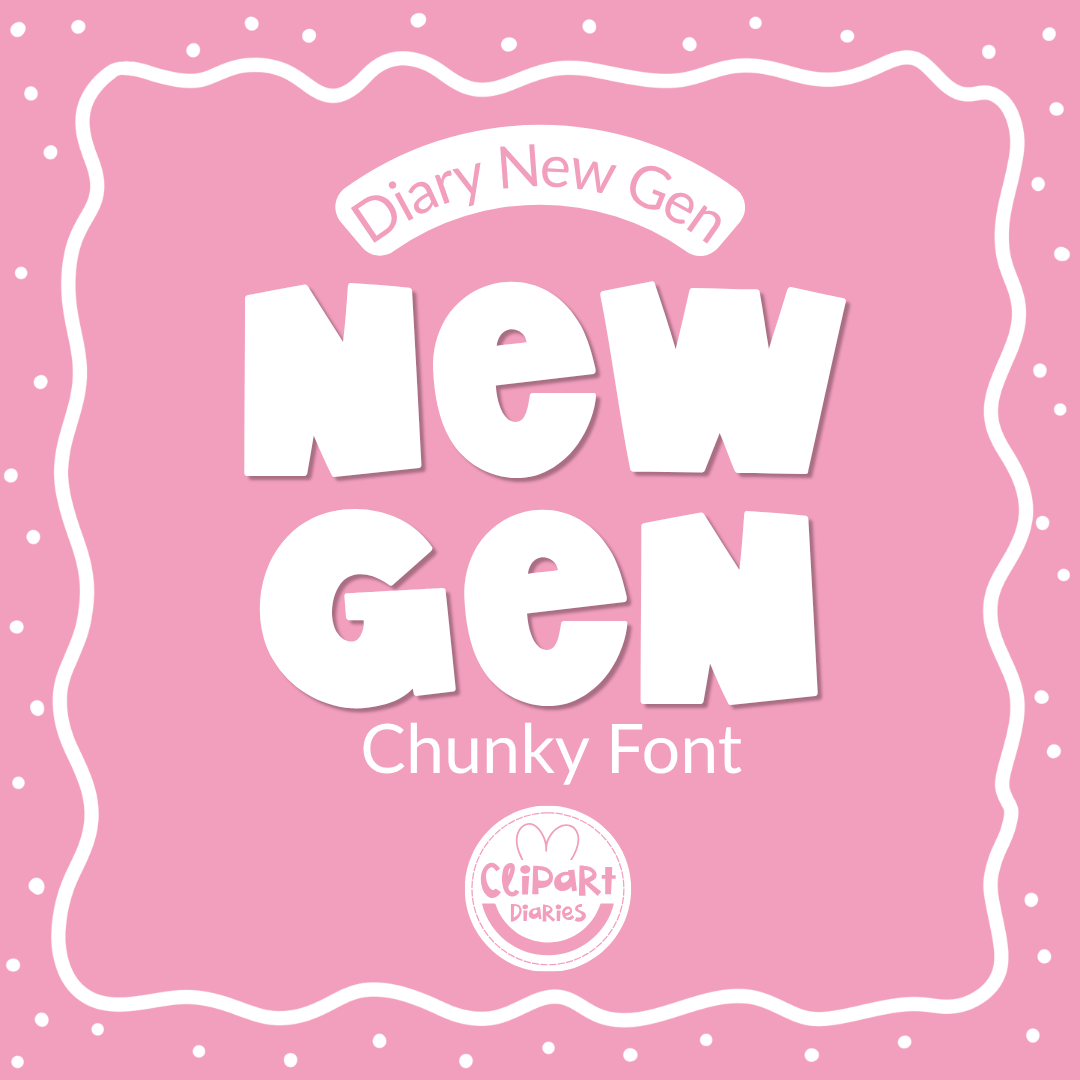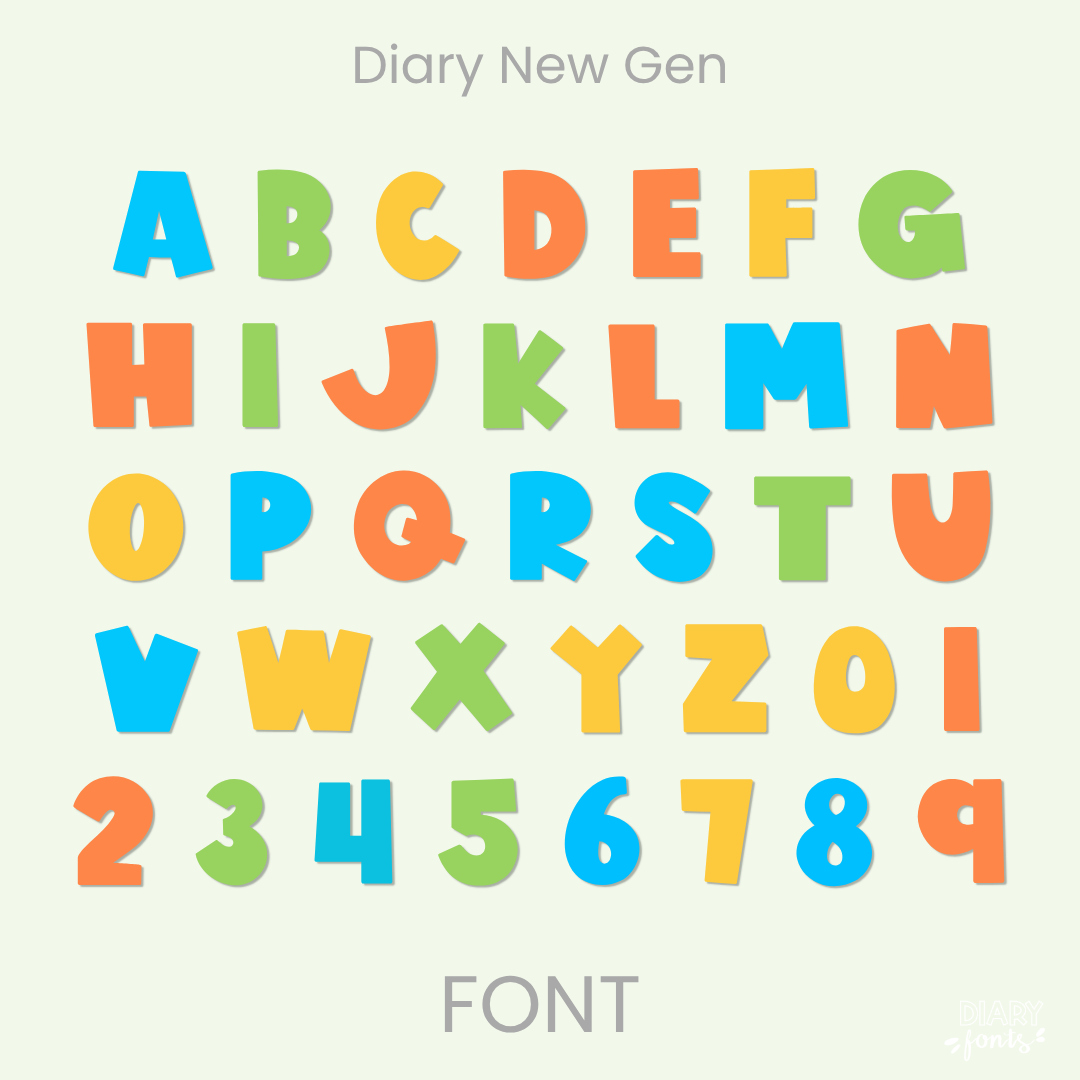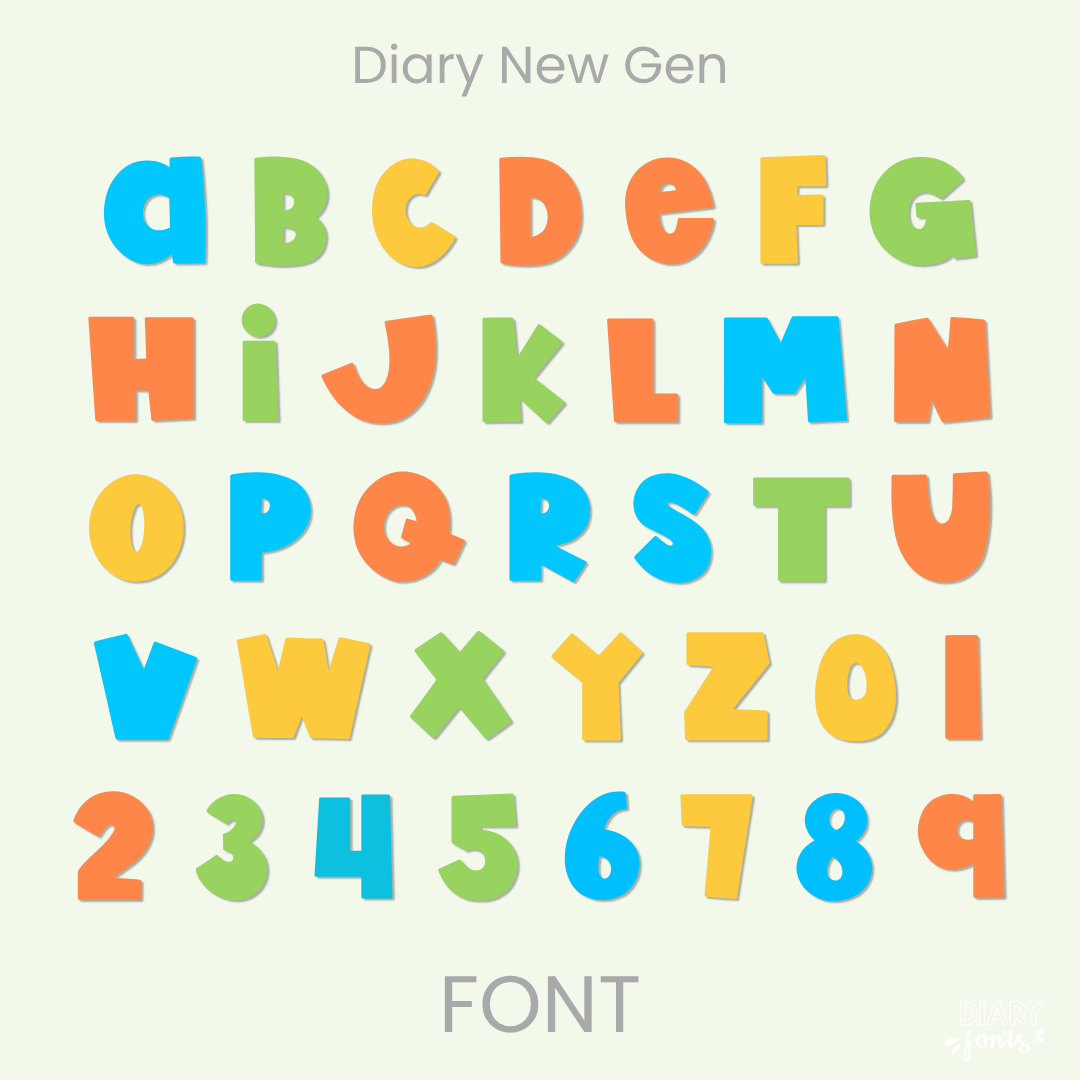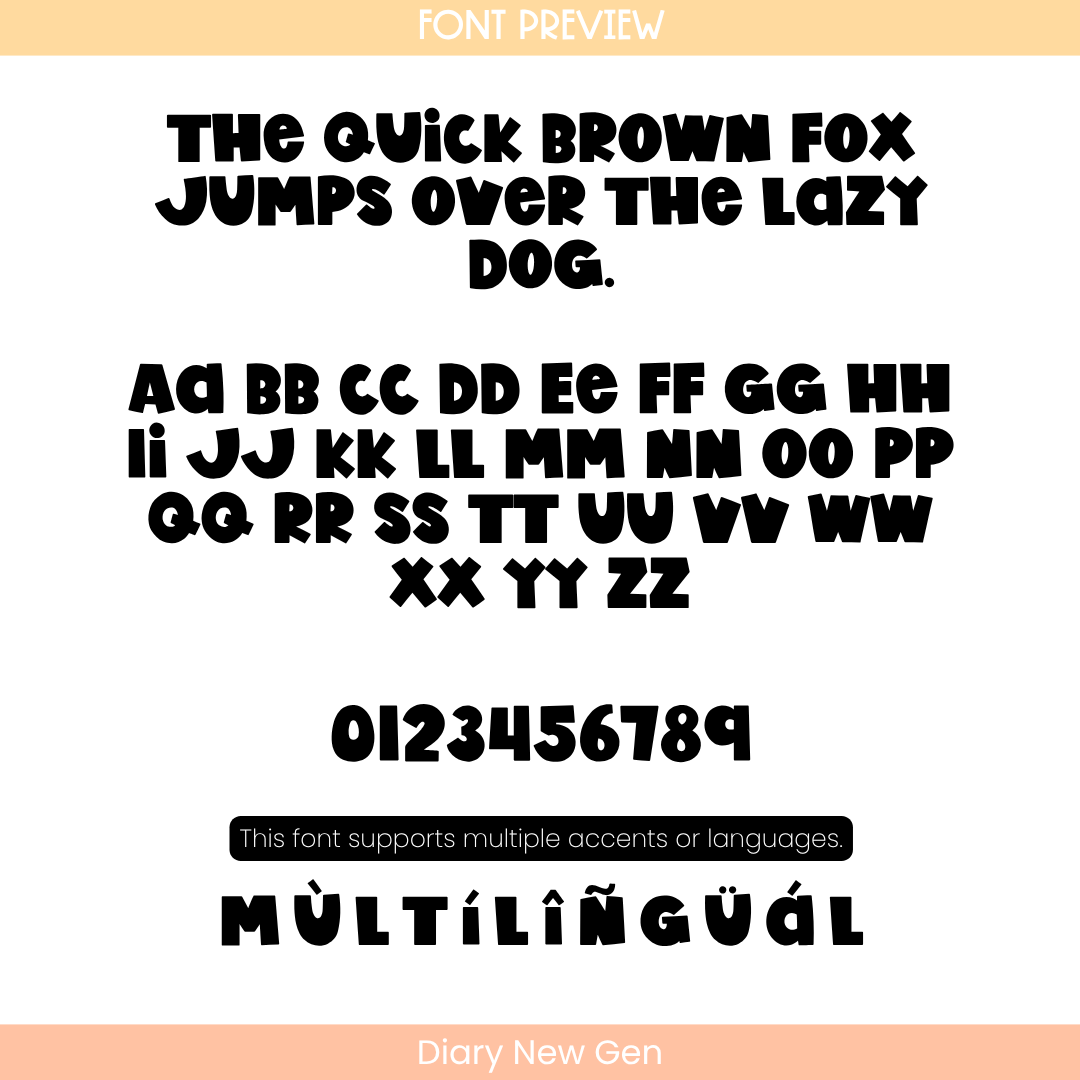
Diary New Gen Font – Chunky Font
The Diary New Gen is a bold, chunky font designed to give your display titles and classroom headers a striking, modern, and high-impact look.
If you want to give your teaching materials a bold and attention-grabbing presence, Diary New Gen is an excellent choice. This typeface features thick, blocky, hand-drawn characters that bring a heavy visual punch to any layout. Built with a strong all-caps structure for both uppercase and lowercase keys, it keeps your text perfectly upright, clean, and modern. Because of its solid weight and clear form, it is highly optimized for standout titles, bulletin board lettering, printable task cards, and resource cover pages where you need words to be easily readable from across a room.
The font provides full multilingual support, including a complete set of alphabet characters, numbers, and multiple accent marks. It installs quickly on your computer and works seamlessly within Canva, MS Office, and Adobe Apps, as well as on iPad creation tools like Procreate and GoodNotes. Whether you are setting up seasonal displays for your students or designing premium commercial teacher resources, this font adds an approachable, bold, and modern aesthetic to your design toolkit.